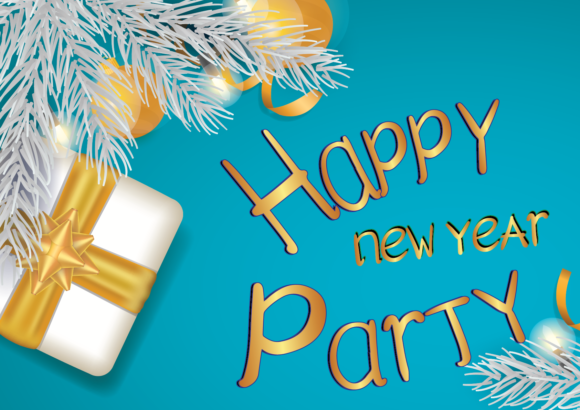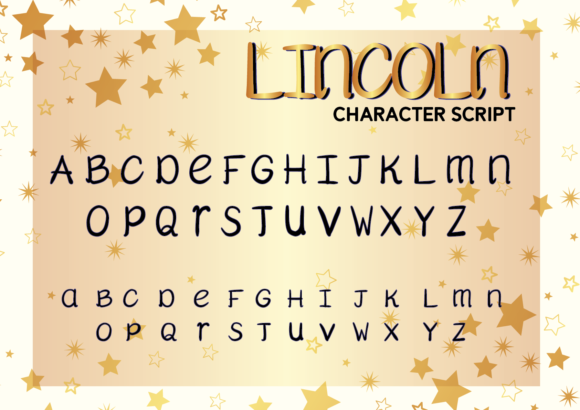
Introduction to Lincoln Font
Do you remember the excitement of creating a handmade card for a loved one or crafting a school project that truly reflected your personality? That’s the magic of unleashing your creativity, and it’s exactly what the Lincoln Font is all about. This enchanting script font is designed to bring out the childlike playfulness in you, making it a perfect design resource for any creative project.
As a designer, you’re always on the lookout for high-quality fonts that can elevate your work and make it stand out. The Lincoln Font is a valuable addition to your design arsenal, offering a unique blend of fun, quirkiness, and authenticity. With its transparent background and free download option, you can easily integrate it into your next creative project and add a touch of personality to your designs.
Key Features of Lincoln Font
- High-quality, professional design ideal for creative projects and presentations.
- Lincoln Font is available in 5 different weights, including Light, Regular, Medium, Bold, and Heavy, providing a range of design options.
- Lincoln Font is a unique and versatile design element, perfect for adding a touch of elegance and sophistication to any creative project.
Honest Review: Lincoln Font
I recently stumbled upon the Lincoln Font, and I’m excited to share my thoughts on this design resource. As a designer, I’m always on the lookout for high-quality fonts that can elevate my creative projects. The Lincoln Font is a beautiful, elegant script font that’s perfect for adding a touch of sophistication to your designs.
- ✨ High-quality design: The Lincoln Font is meticulously crafted with attention to detail, making it a great addition to any design project.
- ⚠️ Limited character set: The font only includes a limited number of characters, which may not be suitable for projects that require a wide range of characters.
- ⚠️ Not suitable for bold text: While the font looks great for body text, it may not be the best choice for bold or headline text.
Overall, I’m impressed with the Lincoln Font. While it has some limitations, its high-quality design and transparent background make it a valuable resource for designers. If you’re looking for a elegant script font for your creative project, I’d definitely recommend giving the Lincoln Font a try.
Lincoln Font
Tips for Getting the Most Out of Lincoln Font
To get the most out of the Lincoln Font, consider using it for creative projects that require a unique and high-quality design resource. The font’s transparent background makes it perfect for use on images or as a standalone design element.
The Lincoln Font is ideal for a variety of design projects, including logos, business cards, brochures, and social media graphics. Its versatility and high-quality design make it a valuable resource for designers and non-designers alike.